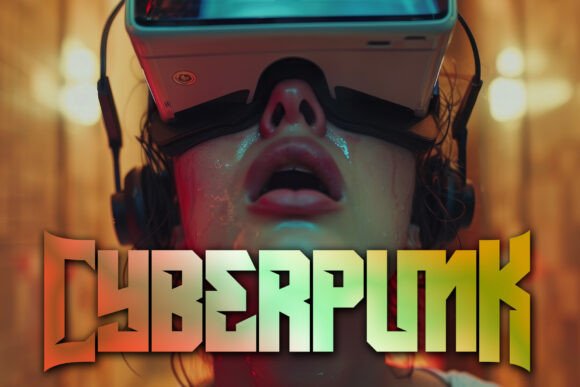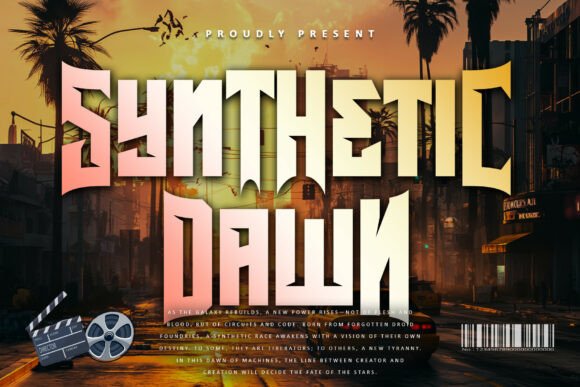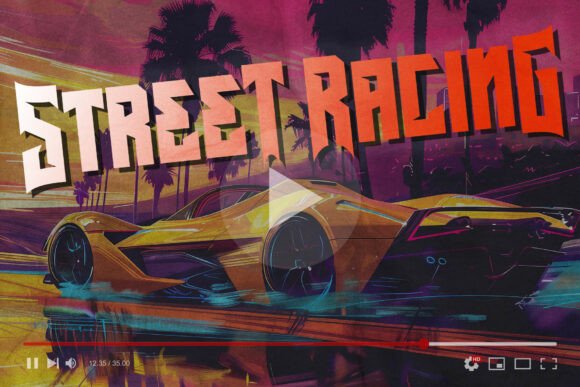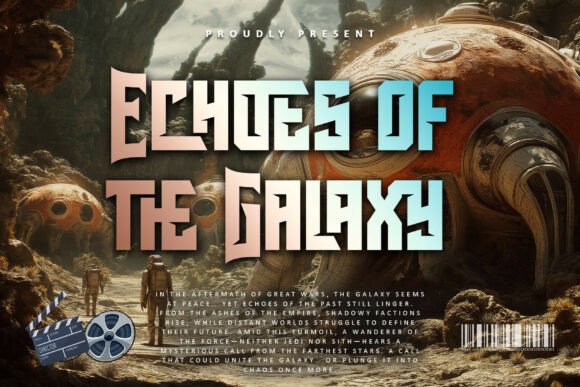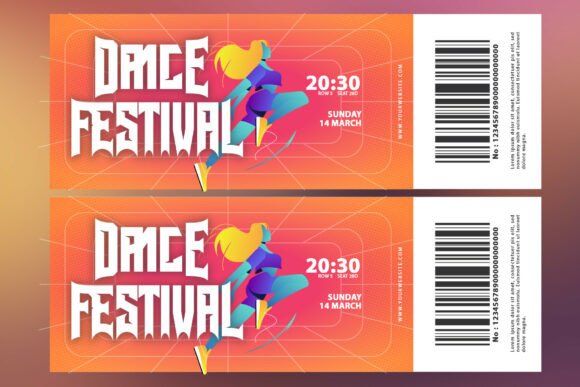
Introduction to Grandover Font
You’ve spent hours perfecting your creative project, pouring your heart and soul into every detail, from the intricate textures to the bold typography. But sometimes, it’s that one missing element that can take your design from good to great. For designers seeking a high-quality font that exudes urban grit and cinematic presence, the search is finally over.
Enter the Grandover Font, a fearless display typeface designed to dominate any scene. With its sharp edges, futuristic strokes, and 26 Alternates, 26 Swashes, and an impressive 112 Ligatures, this font gives you endless flexibility to craft unique letter combinations and powerful typographic statements.
Whether you’re working on a neon-lit street art project, a cyberpunk poster, or a gaming title, the Grandover Font is the perfect design resource to elevate your work. And with its PUA-encoded features, accessing all glyphs, swashes, and alternate characters is effortless, making it a valuable addition to any designer’s toolkit.
Key Features of Grandover Font
- High-quality, vector-based design for a seamless and scalable experience in various creative projects.
- Transparent background, allowing for easy customization and integration with various design elements.
- Includes a range of font styles, including bold, italic, and regular, to cater to diverse design needs.
- Designed to be highly legible, making it suitable for use in a variety of creative projects, from print to digital media.
Honest Review: Grandover Font
I recently had the chance to work with the Grandover Font in a creative project and I must say, I’m quite impressed. As a designer, I’m always on the lookout for high-quality fonts that can elevate my designs, and the Grandover Font definitely fits the bill.
One of the things that stands out about this font is its versatility. It works well for both body text and headlines, making it a great addition to any design project. The font also has a transparent background, which allows it to blend seamlessly into any design.
Here are some things that work well about the Grandover Font:
- High-quality design: The font is well-crafted and looks great on any device.
- Transparent background: This feature makes it easy to use the font in any design without worrying about background noise.
- Limited language support: The font only supports a few languages, which may be a drawback for designers working on international projects.
Overall, I’m really impressed with the Grandover Font and would highly recommend it to designers looking for a high-quality, free design resource. With a little planning, the limitations can be worked around, and the results are well worth it.
Tips for Getting the Most Out of Grandover Font
To get the most out of the Grandover Font, use it with a transparent background to give your design a clean and modern look. This free download is a valuable design resource that can elevate your creative project.
The Grandover Font is ideal for use in a variety of design projects, including branding materials, presentations, and marketing materials. Its high quality and versatility make it a valuable addition to any design arsenal.
Compared to Grandover Font, Open Sans has a more contemporary feel and is more suitable for digital displays due to its clear and legible characteristics.
Lato is a beautiful, elegant font ideal for creative projects that require a touch of sophistication. It features a transparent background, making it suitable for use on various backgrounds, including images and videos. Lato is a great design resource for designers who want to add a personal touch to their projects.